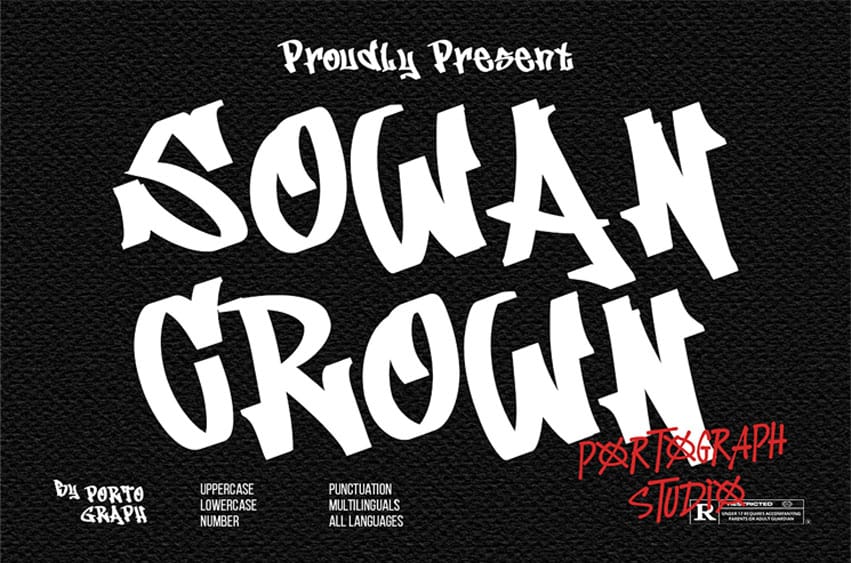
Sowan Crown Font is a bold graffiti style display font inspired by urban street art, skate culture, and raw hand drawn expression.
With its rough edges, irregular strokes, and rebellious attitude, this font delivers an authentic street vibe that instantly stands out.
Perfect For:
- Branding
- Skate & Urban Posters
- Music & Hip-Hop Events
- Album Covers
- Graffiti & Art Projects
- Social Media Graphics
- Youth & Culture Campaigns
- Bold Editorial Headlines